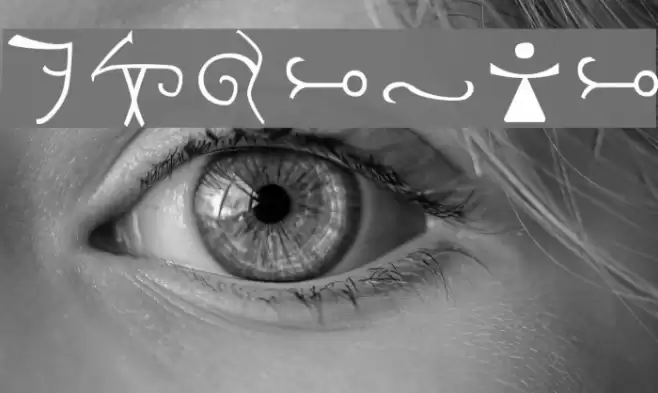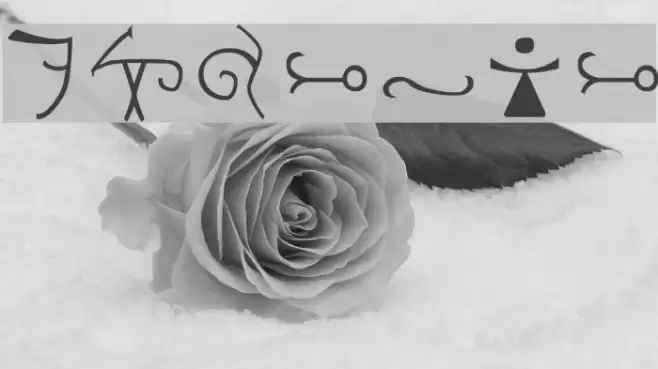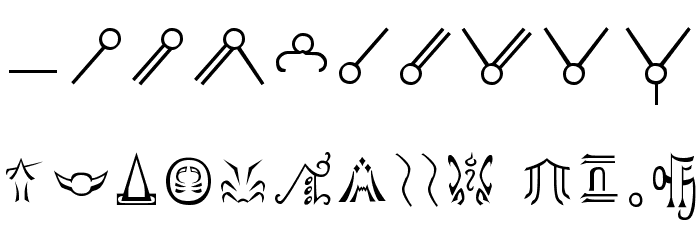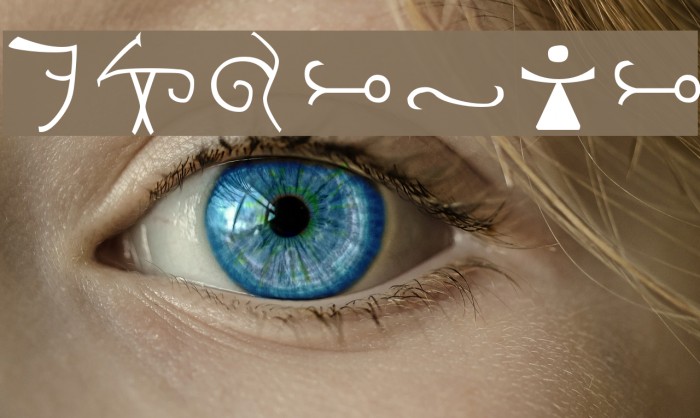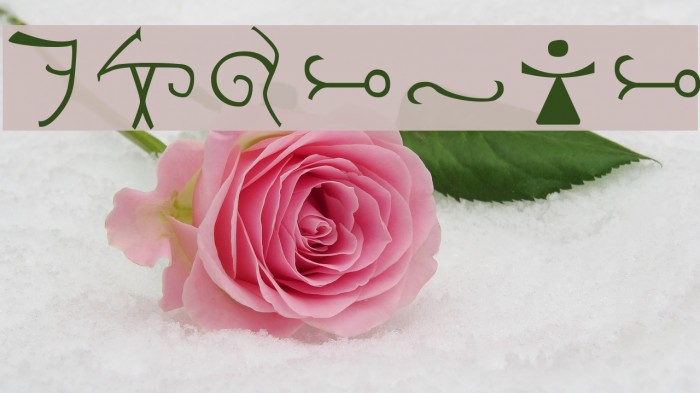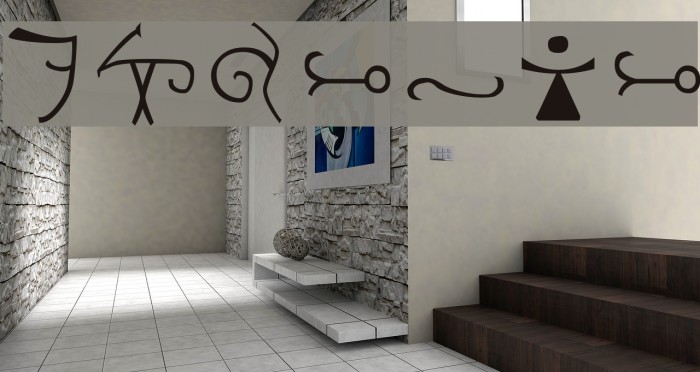
Espruar Font
Espruar Description
This script features an intricate and decorative style, reminiscent of ancient or mystical alphabets. The characters are composed of flowing lines and geometric shapes, creating a sense of elegance and mystery. Each symbol is distinct, with a combination of curves, dots, and angular elements that suggest a ceremonial or magical theme. The overall appearance is both artistic and enigmatic, making it suitable for fantasy or historical contexts.
An intricate and decorative script with a mystical, ceremonial style from Uncategorized fonts.
- Proposed Projects: Ideal for fantasy game design, book covers, or any project requiring an ancient or mystical aesthetic.
- Overall Style: Mystical, Ceremonial, Artistic
- Use Case: Logos, Decorative elements, Fantasy themes